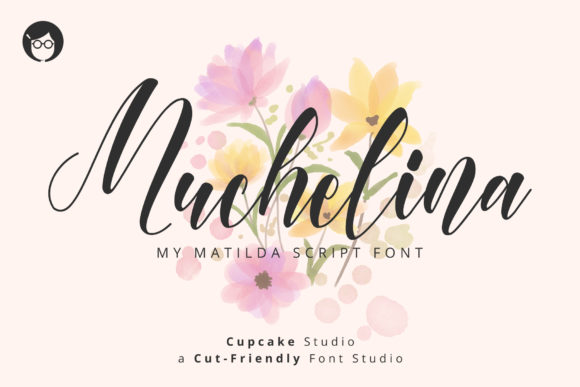
Step into the realm of exquisite typography with AL Muchelina Font, a cursive treasure that personifies grace and beauty. Crafted by the visionary minds of TheSundoro, this script font is the epitome of elegance, transforming your creative projects into masterpieces.
As its name, "Muchelina," suggests, this font embodies a touch of charm that is simply irresistible. Its delicate strokes dance across the page, leaving a trail of sophistication and allure. Whether it's a heartfelt letter, a stunning invitation, or a captivating logo, AL Muchelina Font brings a timeless allure to every word.
Unlike traditional script fonts that can be overly ornate or difficult to read, AL Muchelina Font strikes a perfect balance between classicism and modernity. Its lines flow effortlessly, maintaining a legibility that ensures your messages are communicated with clarity and impact.
With AL Muchelina Font, your words become art. Its versatility knows no bounds, adapting seamlessly to a myriad of design concepts. From the delicate curves of wedding invitations to the playful charm of baby shower decorations, this font possesses the rare ability to elevate any project to new heights of sophistication.
Imagine the joy on your loved one's face as they receive a heartfelt letter penned in AL Muchelina Font, each word a testament to your affection. Picture the awe-inspiring beauty of a wedding invitation adorned with this elegant script, setting the tone for a truly unforgettable celebration.
AL Muchelina Font is more than just a collection of characters; it's an expression of your creativity, a reflection of your personal style. Unleash your imagination and let this font guide you to new realms of artistic brilliance.